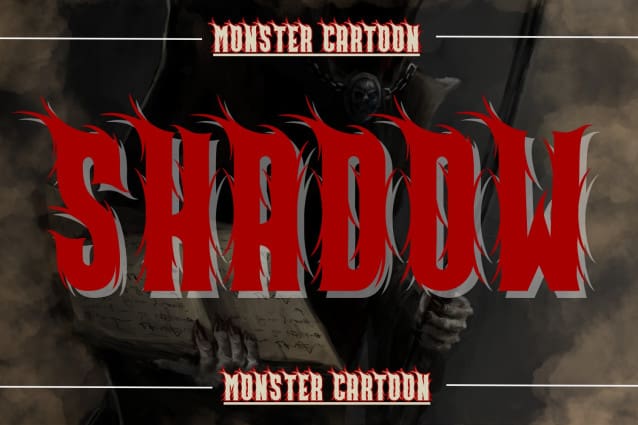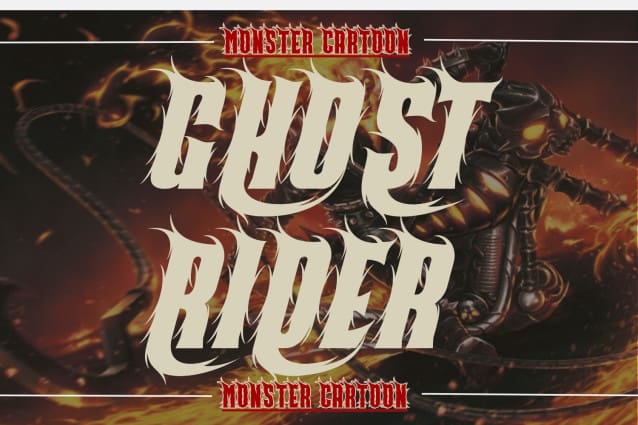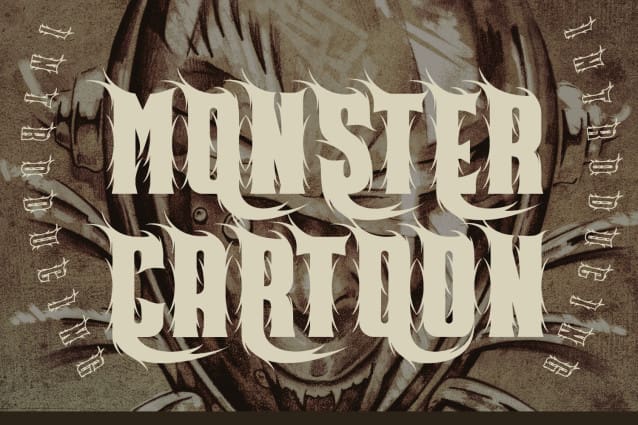
Monster Cartoon Font
Monster Cartoon Font was inspired by siamese brutalism. With an elegant modern style, it adds a bold touch to your projects and will inspire you to create something unique and modern. Besides that, this font is also equipped with ligatures characters and multi-language support. Use it in your graphic-editing-application and be creative, play with it and find out what’s possible.
Monster Cartoon was built with OpenType features and includes 100 ligatures, alternate, numbers, punctuation, and it also supports other languages.
AC AD AL AN AR AS AT AU AV BE CA CE CH CO CT DE DI EA EC ED EE EL EM EN EP ER ES ET FE FO FR GE HA HE HI HO IE IC IL IN IO IR IS IT JU KE LA LE LI LL LO LY MA ME MI NC ND NE NG NO NT NS OC OF OM ON OO OP OR OT OU OW PA PR RA RD RE RI RO RS RT SE SH SI SO SS ST TA TE TH TI TO TR TT UM UN UR VE WI WO